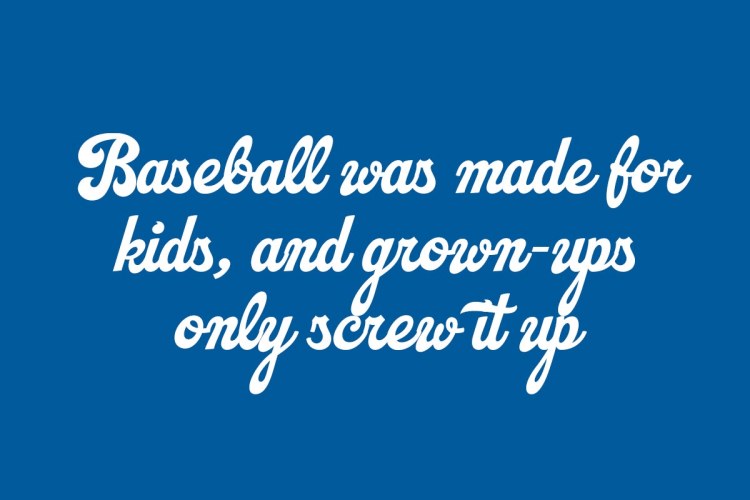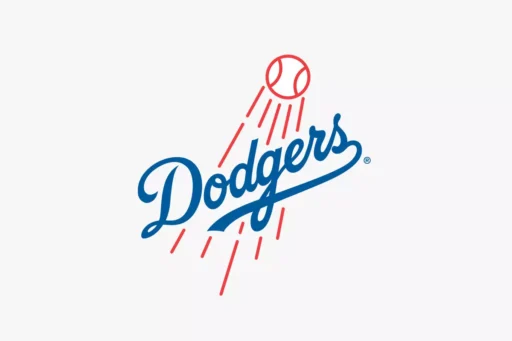
LA Dodgers Font
The Los Angeles Dodgers, a professional baseball team in Major League Baseball, has a rich history and legendary players. This franchise is also famous for the logo and font used in the logo. The LA Dodgers font is a custom creation and isn’t officially available for download. While an exact replica is hard to find, fonts like Catchland closely resemble the Dodgers’ style with their slanted, italicized letters. The distinctive fusion of the ‘L’ and ‘A’ in the Dodgers logo represents the team’s connection to Los Angeles, making it a globally recognized symbol.
The Dodgers are based in Los Angeles but were originally from Brooklyn and began in 1883, although the initial uniforms did not have the script logo. The team only started to incorporate more artistic fonts on their jerseys in the 1930s as a reflection of the art deco style of the time.
The script-style logo that is in use today was first used by the Dodgers in 1952. Otis Shepard, a renowned sports artist and a graphic designer who painted for the Chicago Cubs and other sports teams, intended the script to have movement and dynamism. The script like letters that spelled out “Dodgers” were easy to read and contributed to the teams brand.
La Dodgers logo font has not changed much over the years, but it has always had a clean, simple look that is timeless. The font used in the current logo of the Dodgers is a custom script typeface that has been modified to reflect the essence of the team and the city of Los Angeles. The design is quite modern and clean, with a strong emphasis on the curves and pointed ends which make the typeface appear rather sporty.
The Dodgers font remains dominant in the team’s uniform, helmets, and marketed products. The word ‘Dodgers’ is written in this script font on the front and back of their home and away uniforms, while the ‘LA’ logo is an interlocking design with elements from the script font and is used on their caps.
The font is very important in the identity of the Dodgers and their brand. It gives the impression that the team has a history and that it has a long lasting tradition that is still relevant today. The font has a very modern and sporty look to it and the overall design of the logo captures the essence of LA and the energy of the players.
However, the primary script font is consistent, the Dodgers have experimented with other fonts for specific occasions, branding initiatives, and products. They usually include the use of some parts of the main font to make the whole design look and feel like it belongs to the Dodgers in some way.
The LA Dodgers, whose full name is the Los Angeles Dodgers are a professional baseball team in America. The font style in their logo is known as the LA Dodgers Font.
Where LA Dodgers Font works best
LA Dodgers Font brings a personal, handwritten warmth to invitations, menus and place cards.
Craft brands — coffee, cosmetics, bakery — use scripts like LA Dodgers Font for signature-style logos and labels.
Pair LA Dodgers Font with a plain sans for quotes, stories and Pinterest pins that feel handmade.
What is LA Dodgers Font good for?